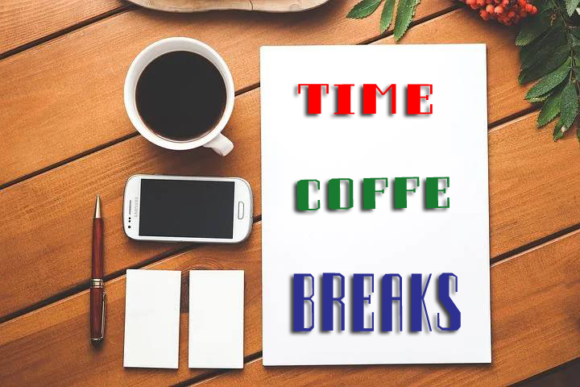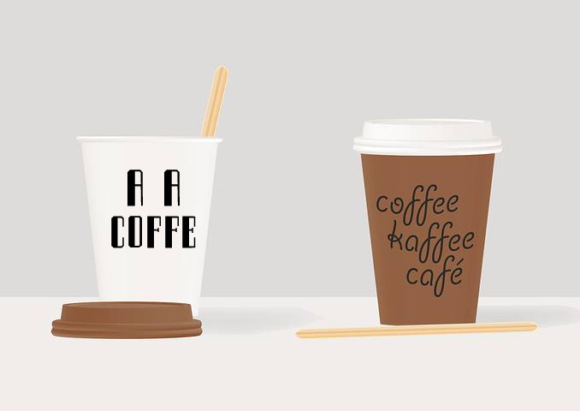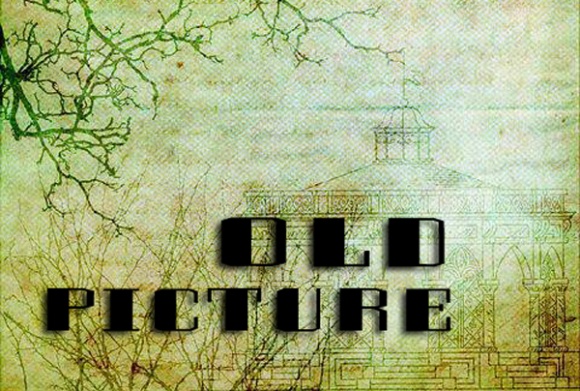
Introduction to Sabrina Font
Sabrina is a cool, bold and thick lettered display font.
This font is ideal for writing web designs, business cards, or pretty much anything else that requires a techno, modern touch .
Key Features of Sabrina Font
Why Choose Sabrina Font?
Sabrina Font offers exceptional quality and versatility, making it a valuable addition to your design toolkit. Whether you’re creating for personal projects or commercial use, Sabrina Font delivers professional results.